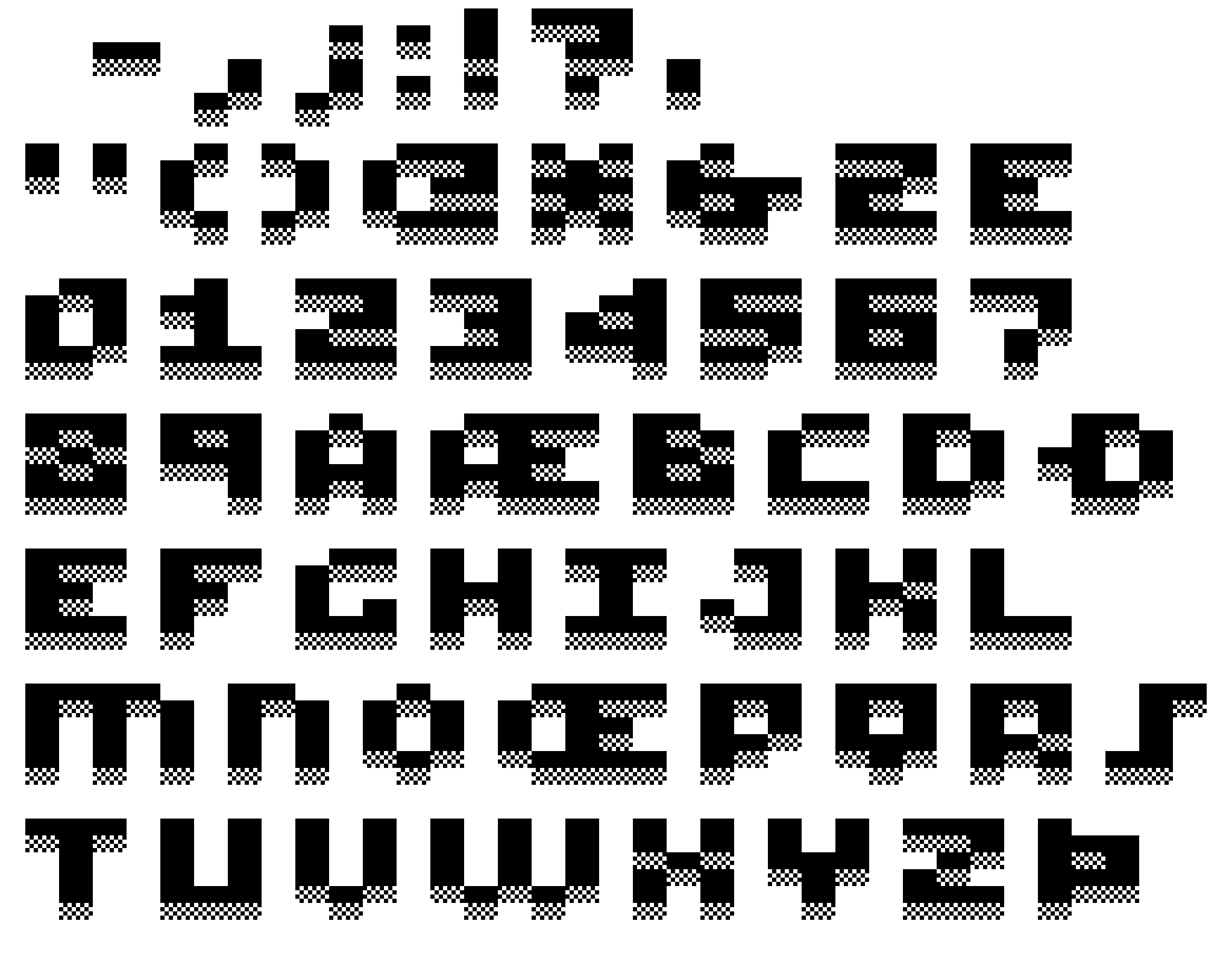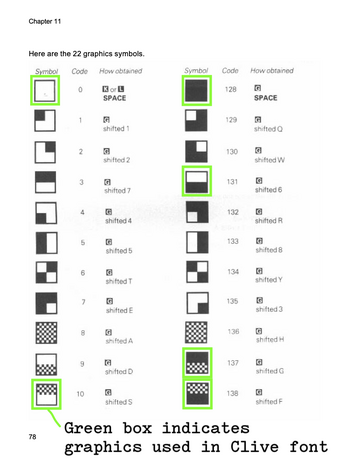
Clive Font
Clive
Clive is a font built from the semigraphics of the ZX81 microcomputer.
Clive is a blocky pixel display font with a strong and authentic 1980s vibe. Clive sports a south-shadow using the ZX81’s unique 50% dither blocks.
The character repertoire is deliberately limited. The sharp eyed will see that there is not even an apostrophe character: you have to use a comma or double-quote—just like on the original ZX81!